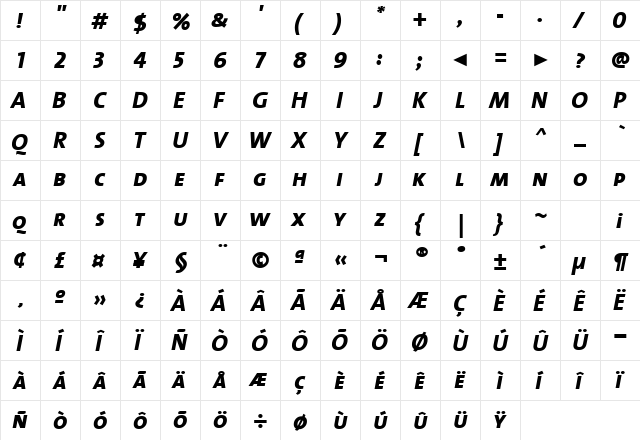
TheSanExtBolCapIta Regular Font Preview
TheSanExtBolCapIta Regular
Design Context for TheSanExtBolCapIta Typeface
TheSanExtBolCapIta is a composed and adaptable typeface that performs quietly and consistently across a wide range of design contexts.